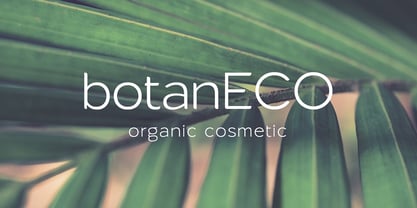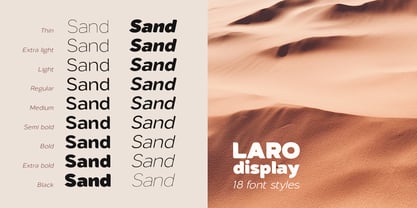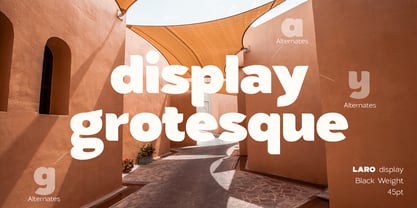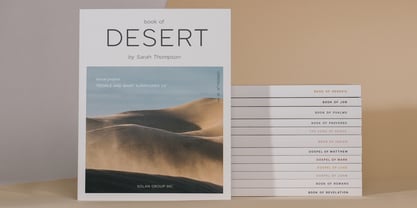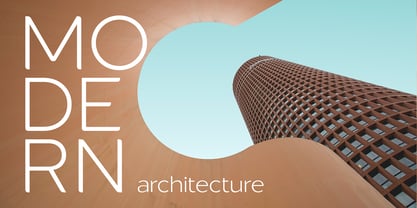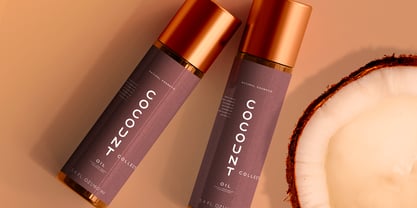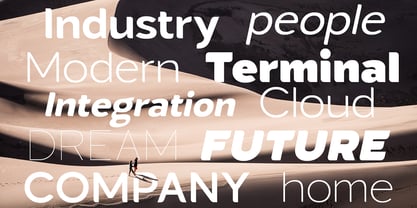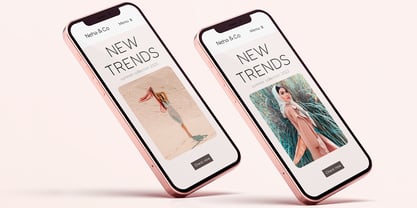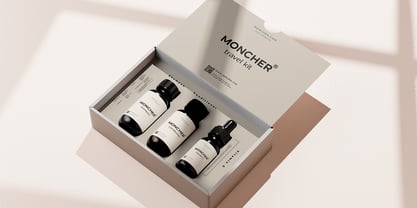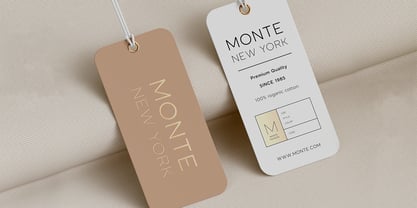
Laro Display
by Larin Type Co
The Laro Display Font Family was designed by Pavel Larin and published by Larin Type Co. Laro Display contains 18 styles and family package options.
Laro Display this is a modern sans-serif font that includes nine weights from thin to black and nine weights in Italic style.
This multi-purpose font captures a huge range for the design and creation of your project. Laro will perfectly cope with a variety of tasks and he will always look stylish and modern. With it, you can create logos, labels, use in advertising, packaging, branding, book covers and magazines, cosmetics, banners, posters, headings, descriptions and much more.